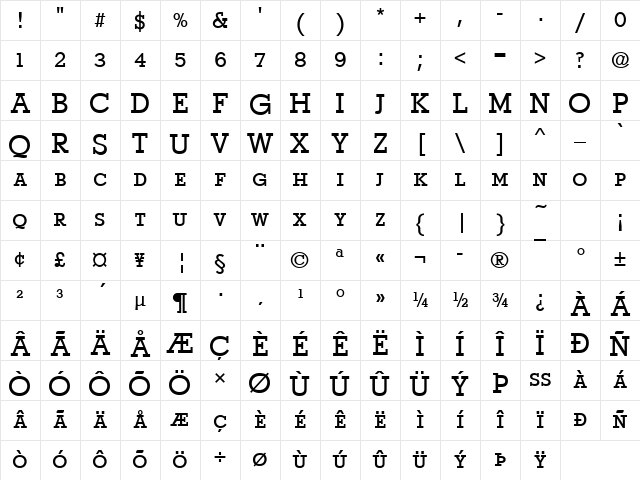
Stymie Becker Discaps Regular
Design Context for Stymie Becker Discaps
Stymie Becker Discaps is a composed and adaptable typeface that performs quietly and consistently across a wide range of design contexts.